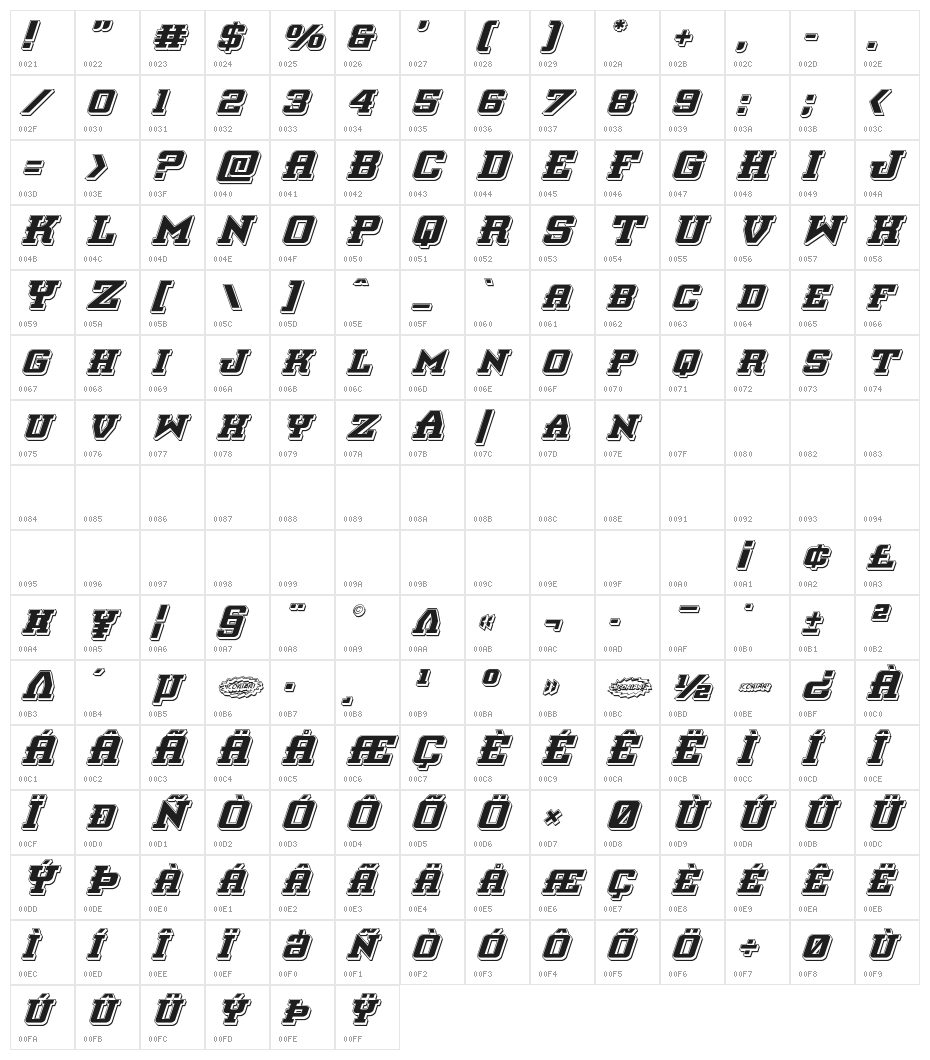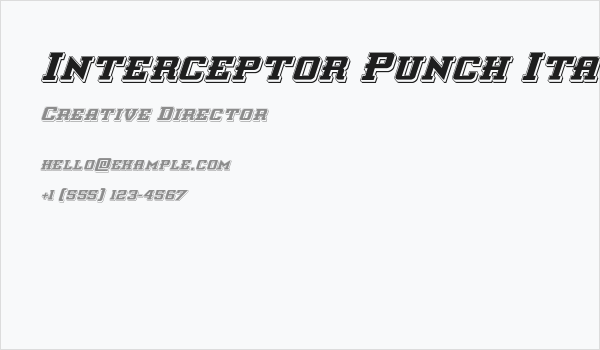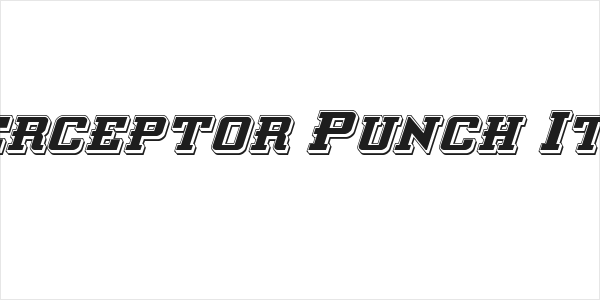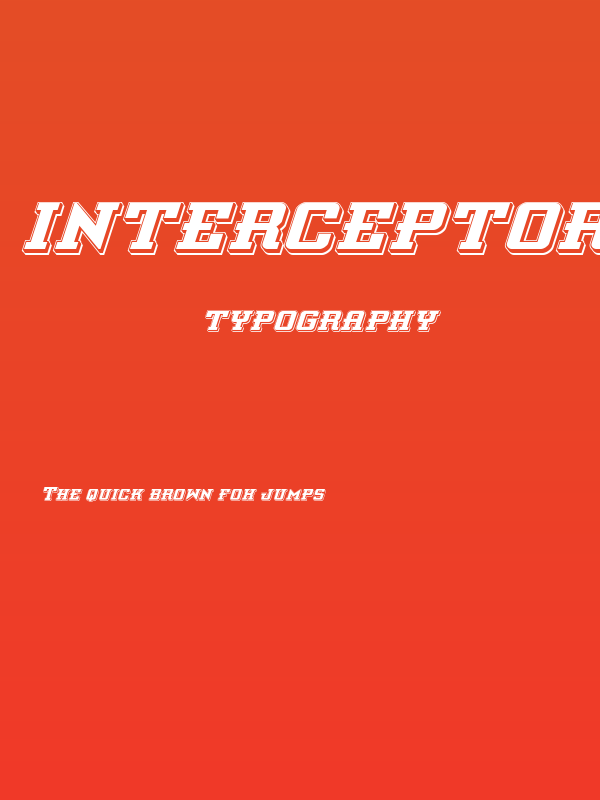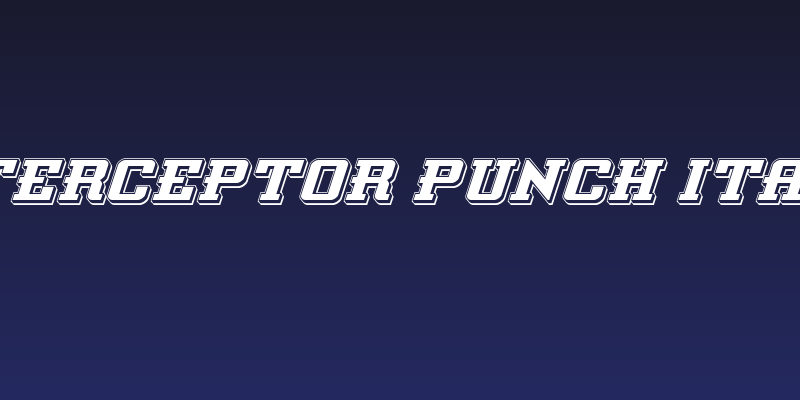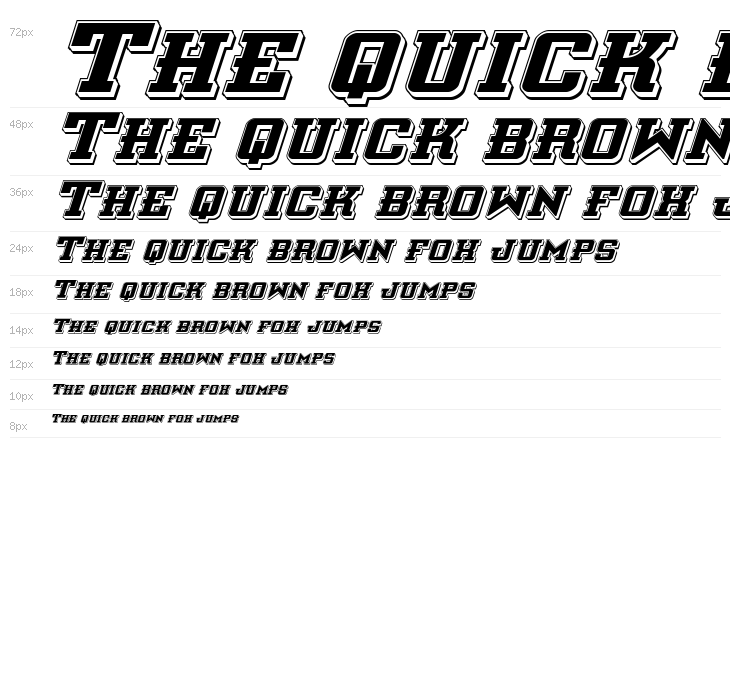
Interceptor Punch Italic Font
Interceptor Punch Italic Description
This font features a bold, dynamic style with a strong italic slant, giving it a sense of motion and energy. The characters are outlined with a thick border, enhancing their visibility and impact. Each letter is designed with sharp angles and a geometric structure, contributing to a modern and aggressive aesthetic. The uppercase and lowercase letters maintain consistent proportions, while the numerals and special characters are crafted to match the overall style. This font is ideal for projects that require a bold statement, such as sports branding, posters, or dynamic headlines.
| Proposed Projects | Ideal for sports branding, dynamic posters, and impactful headlines. |